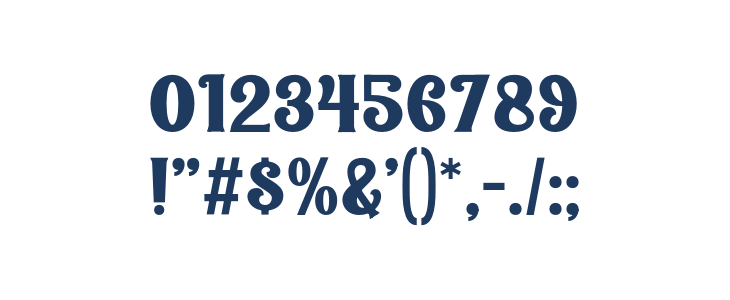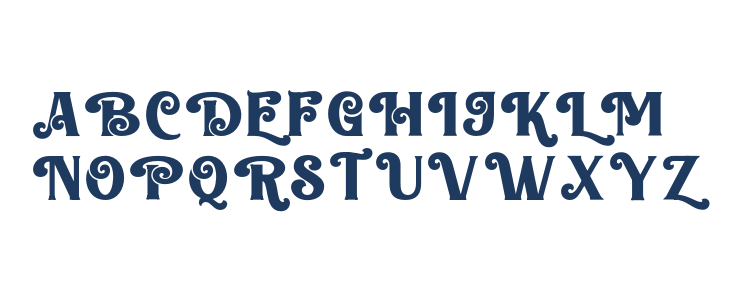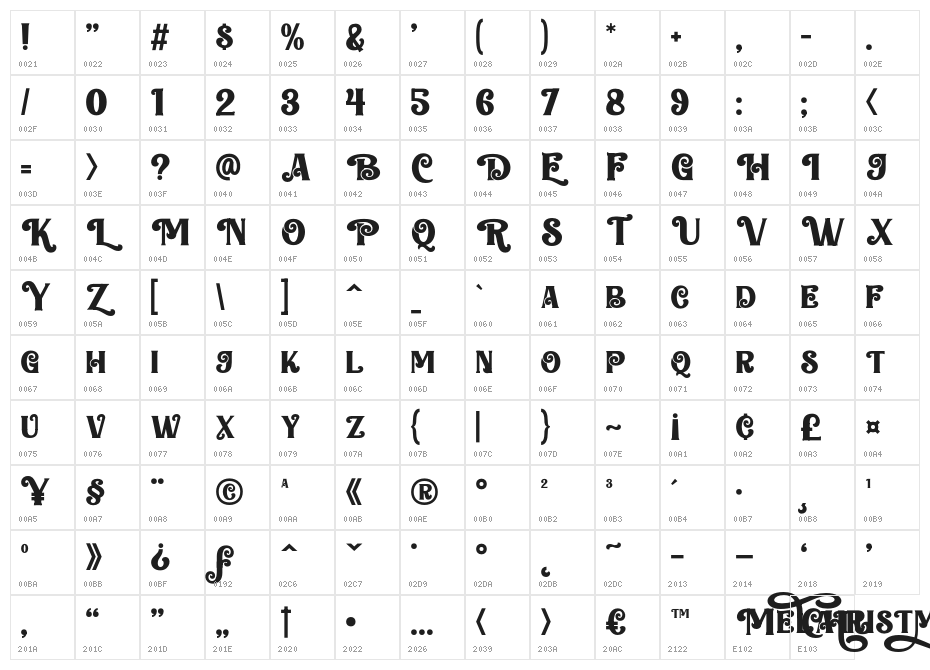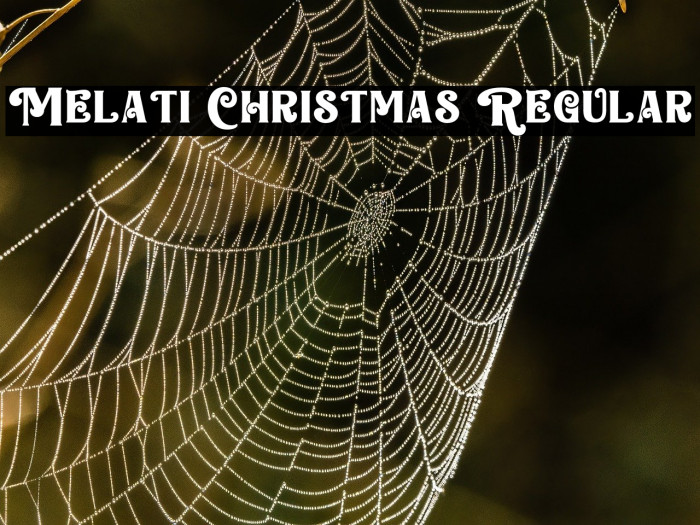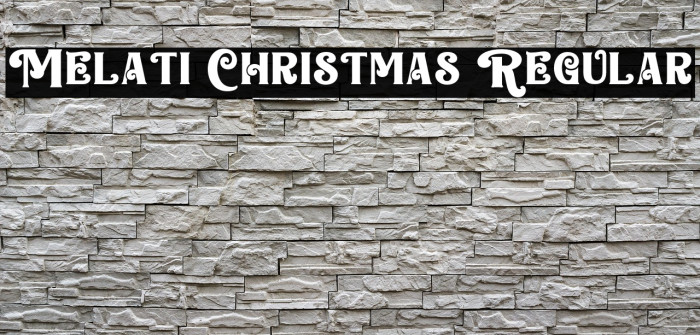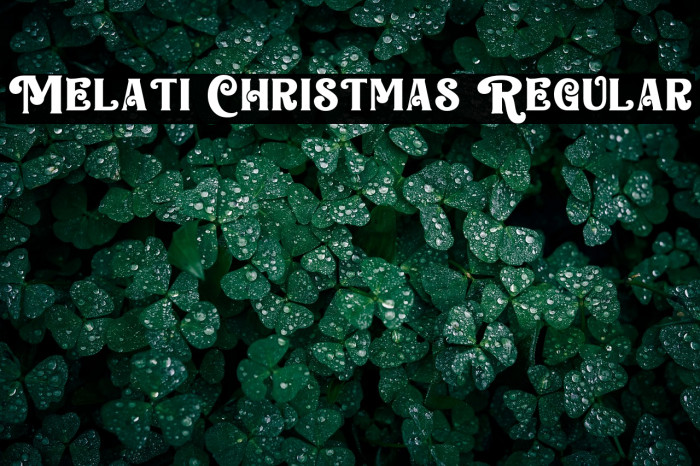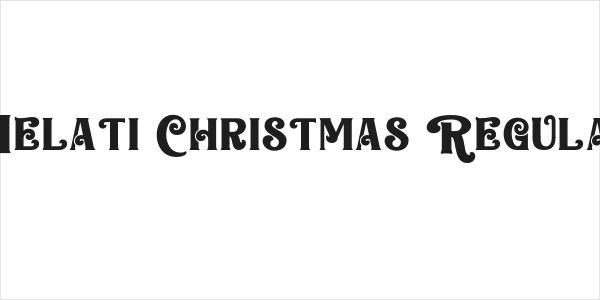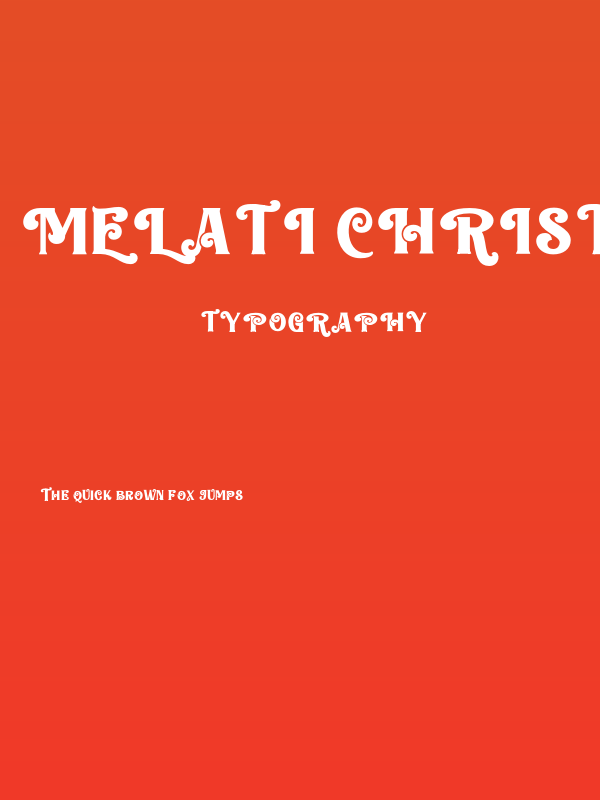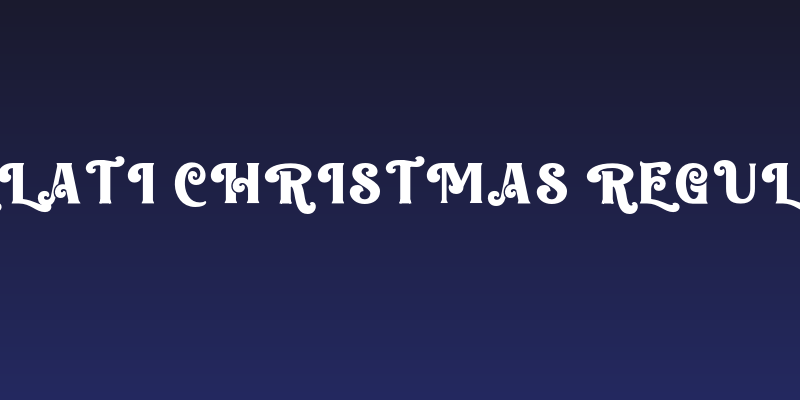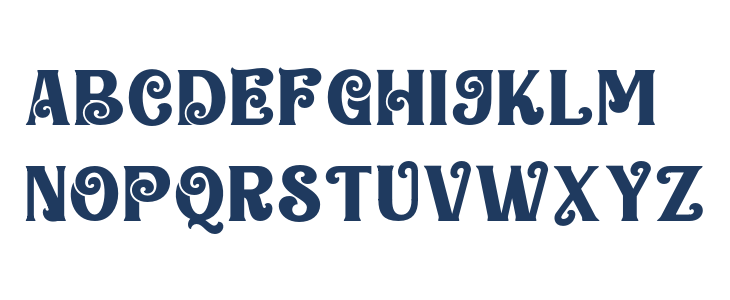
Melati Christmas Regular Font
Melati Christmas Regular Description
A bold decorative display font with whimsical, swirling elements integrated into the letterforms, creating a festive and playful appearance. The characters are wide with high contrast between thick and thin strokes, and the overall style is ornate and eye-catching.
| Overall Style | Decorative, Festive, Playful |
| Use Case | Headlines, Logos, Posters, Invitations |
| Proposed Projects | Holiday cards, event posters, festive branding, party invitations, themed packaging. |